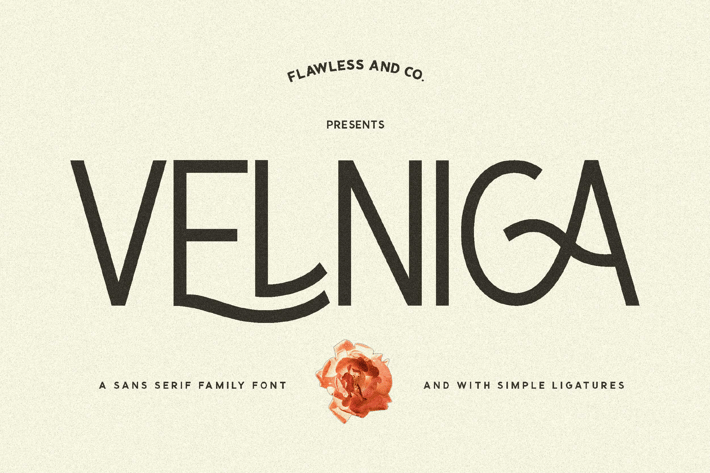
Velnica Sans Serif Font Family
Introducing Velnica, a sans-serif font family that exudes sophistication and style. With its clean lines, geometric shapes, and subtle stroke variations, Velnica is perfect for creating a modern and refined look for your branding, web design, and editorial projects.